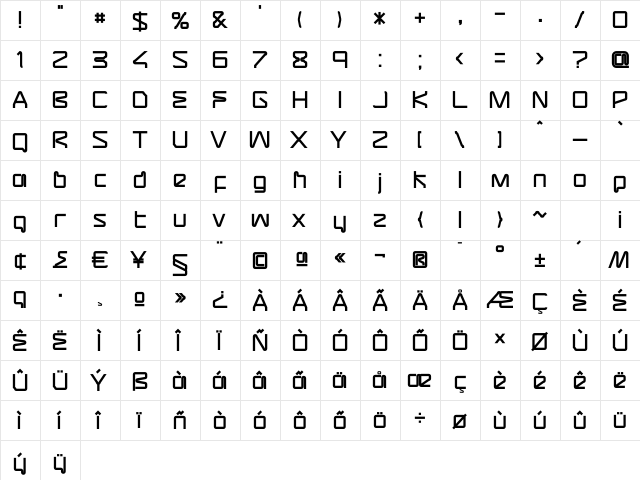
AssemblerBold Regular
Design Context for AssemblerBold Typeface
AssemblerBold takes a measured approach to typography — its balanced proportions and neutral character make it a reliable workhorse for both digital and print work. The heavy weight commands attention and anchors typographic hierarchies.
Pro Tip: Use AssemblerBold in both headline and body roles to test its range before committing to a single application.